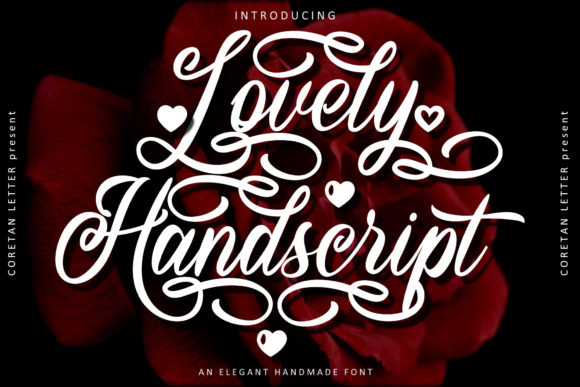
Introducing Lovely Handscript - A Captivating Script Font That Inspires Creativity and Elegance
Are you ready to embark on a typographic journey that will transform your creative endeavors into exquisite masterpieces? Look no further than Lovely Handscript, a contemporary handwritten font that captivates the senses with its natural grace and sophisticated charm. Meticulously crafted by Coretanletter, this script font is an artistic marvel that will elevate your designs to new heights of elegance and originality.
With its carefully crafted strokes, Lovely Handscript emulates the beauty of handwritten calligraphy, adding a touch of personal charm to your projects. Its smooth, flowing lines evoke a sense of authenticity and warmth, making it the perfect choice for a wide range of design applications. Whether you're creating wedding invitations, designing product packaging, or simply adding a touch of elegance to your social media posts, Lovely Handscript will effortlessly elevate your work to a new level of sophistication.
But Lovely Handscript's versatility doesn't stop there. Its meticulously crafted characters lend themselves beautifully to a multitude of creative pursuits, from crafting personalized quotes and posters to designing eye-catching logos and branding materials. Let your imagination run wild as you explore the endless possibilities that await with this stunning script font.
As a PUA-encoded font, Lovely Handscript grants you effortless access to its full repertoire of glyphs and swashes. Unleash your creativity as you seamlessly integrate these embellishments into your designs, adding an extra layer of intricacy and visual interest. Experiment with different combinations to create captivating headlines, logos, and monograms that leave a lasting impression on your audience.
With Lovely Handscript, you hold the key to unlocking a world of creative possibilities. Its versatility and timeless appeal make it an indispensable tool for any designer or creative professional seeking to add a touch of elegance and originality to their projects. Embark on this typographic journey today and experience the transformative power of Lovely Handscript.